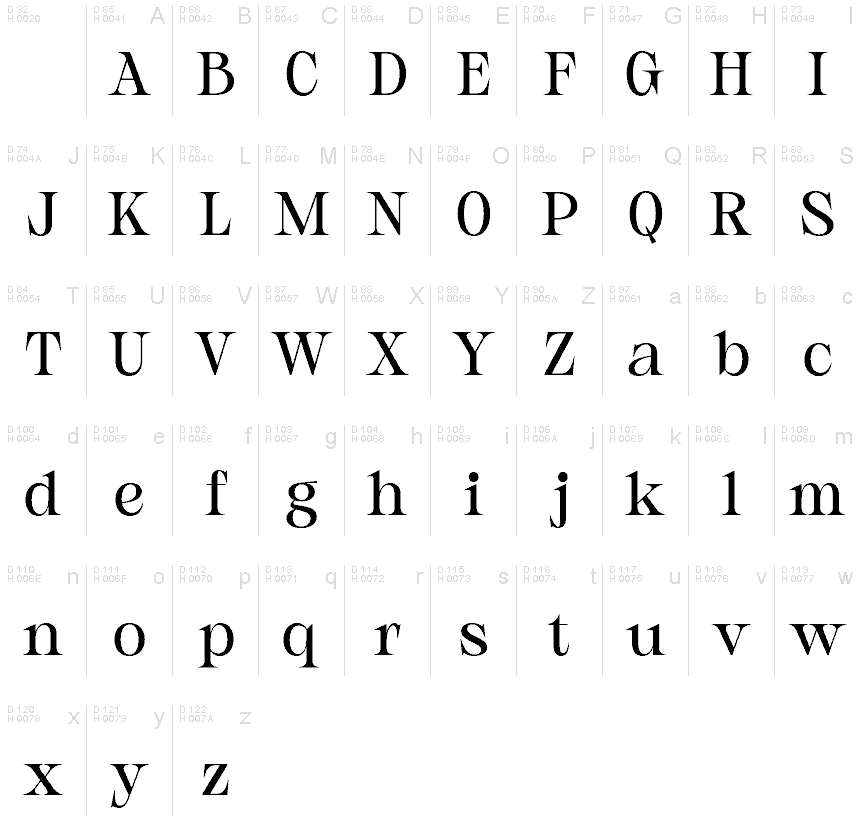
CS Amerta Regular Demo
CS Amerta font by Craft Supply Co. combines elegance and sophistication in each well-defined line. The modern serif font showcases an exquisite balance of classic style with a fresh touch giving it a unique appeal. Beautiful where used, the font captures a lot through its aesthetic and design exquisiteness making it a perfect option for all.
Free form, every char joining CS Amerta is here to strengthen your card, invitation, logo, title art design development among other uses. Quoting the author; you can confidently use the font in websites related to fashion magazines or blogs along with other commercial publications that need beautifying!